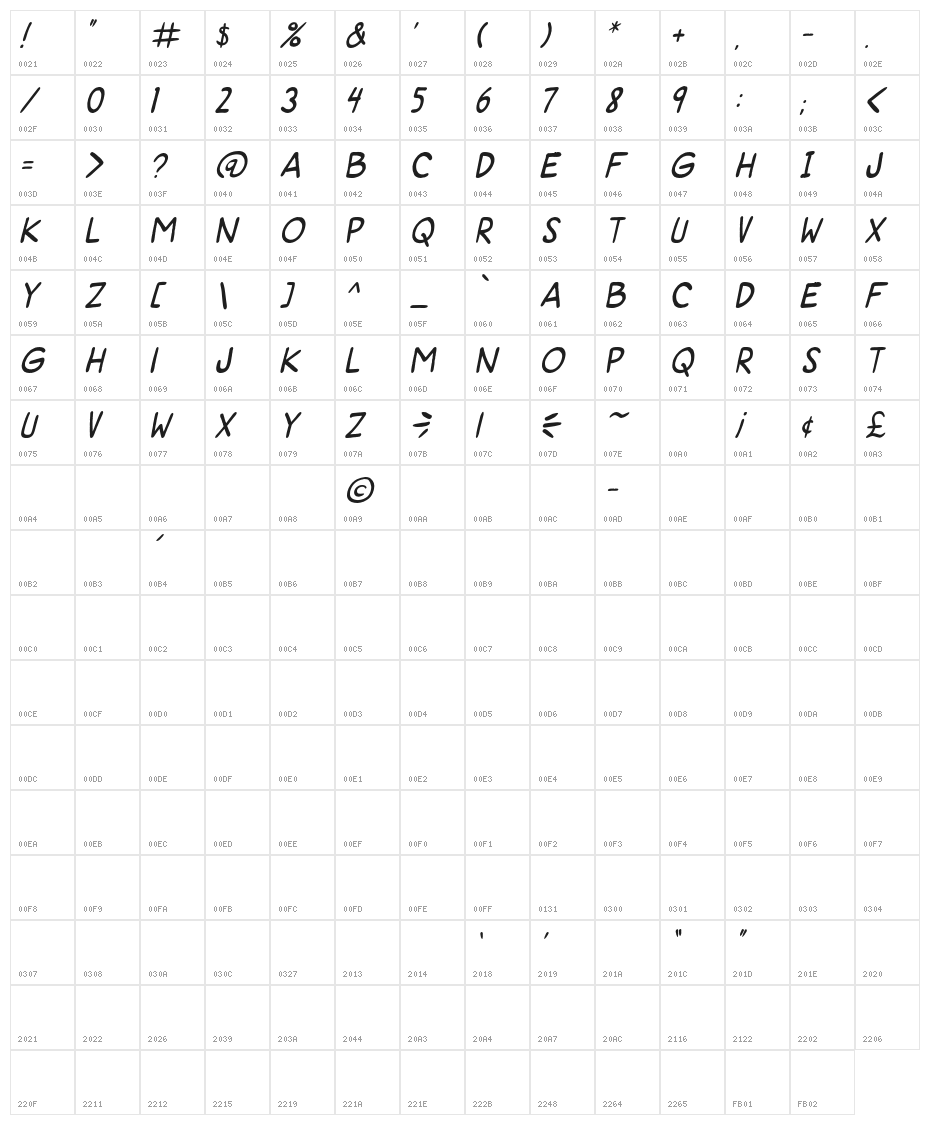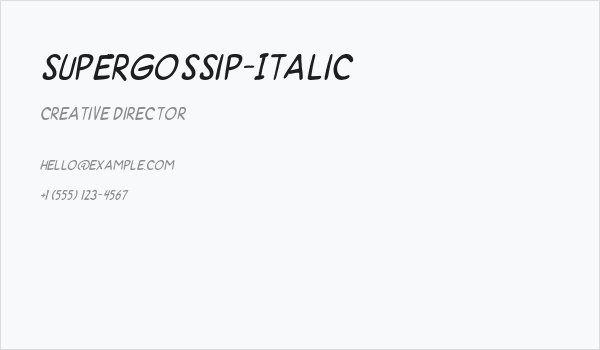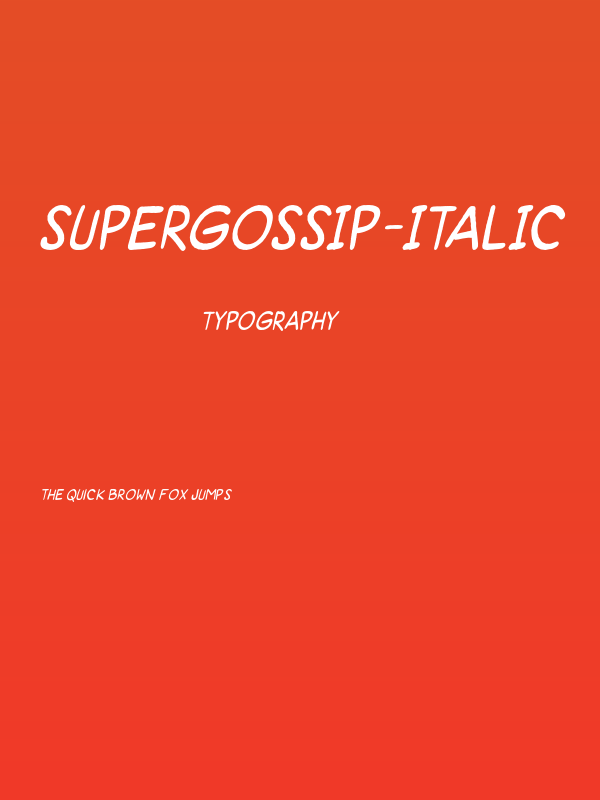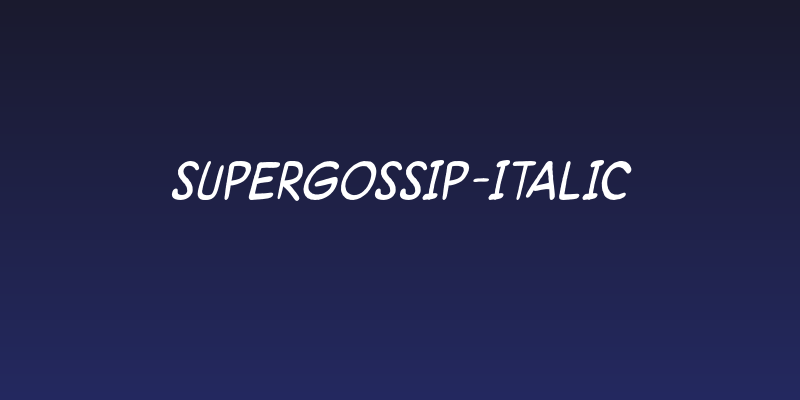
SuperGossip-Italic Font
SuperGossip-Italic Description
This font features a playful and dynamic style with a handwritten appearance. The letters are slightly slanted, giving it an italicized look, and the strokes are smooth and fluid, adding a sense of motion. The characters are well-spaced, ensuring readability while maintaining a casual and informal vibe. The numbers and special characters follow the same style, making it versatile for various uses. Its unique charm makes it suitable for creative projects that require a personal touch.
| Use Case | Logos, Headlines, Informal Text |
| Proposed Projects | Ideal for greeting cards, personal branding, social media graphics, and informal invitations. |